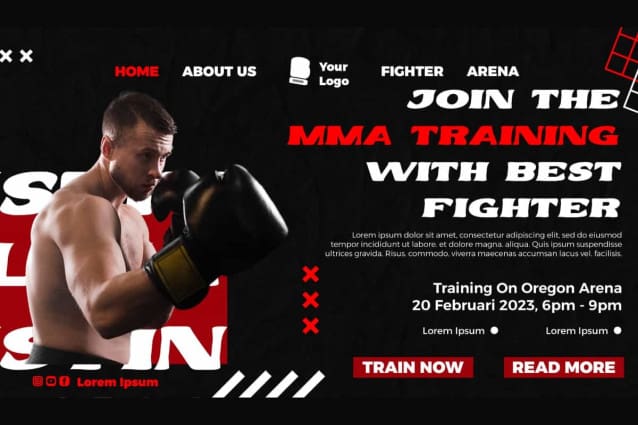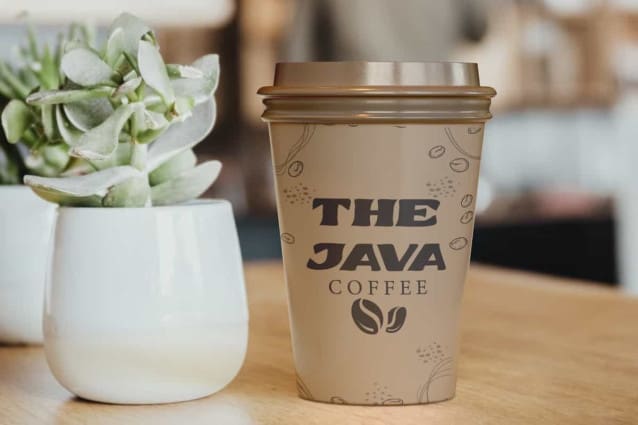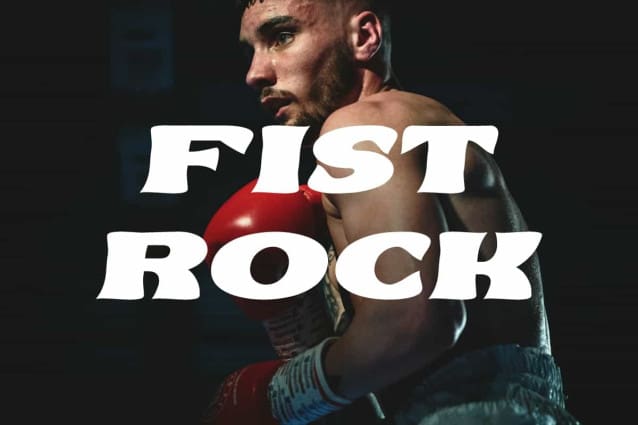
Fist Rock Font is a retro games inspired bold display font. The font has a casual style, but it won’t get boring because it fits into various types of designs. It would be good for headline, invitation, label, magazine, poster, product packaging, screen print, signage, social media posts, sticker, title, websites and more.
Fist Rock Font includes full set of ALL CAPS for Uppercase and Lowercase Basic Characters, Numbers, Punctuation and Symbols. This amazing font carefully crafted to create the perfect font so that it will be suitable for advertising, cafe, crafts, fashion, game, gym, photography, sports, etc.